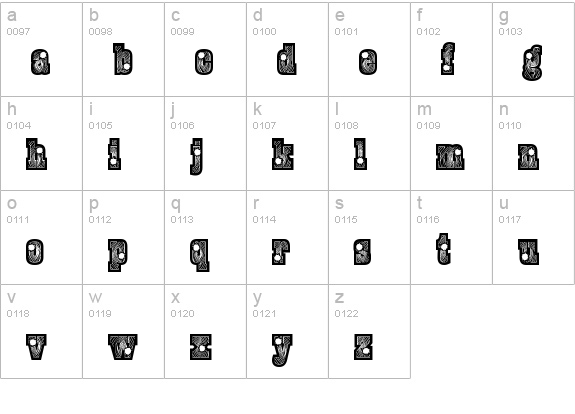
BurrisBlackShootout Font Details
BurrisBlackShootout font is a bold and eye-catching typeface that exudes power and strength. With its sharp angles and solid lines, this font commands attention and makes a statement. Perfect for headlines, posters, and other display purposes, BurrisBlackShootout font is sure to leave a lasting impression on your audience. The free version of this font is available for download at FontsMarket.com, making it easily accessible for all your design needs. Let BurrisBlackShootout font elevate your designs and bring a touch of boldness to your projects.